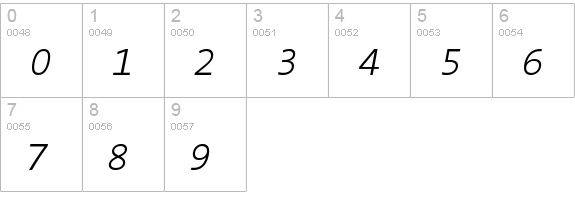
TheSans B3 Light Italic Font Details
TheSans B3 Light Italic is a refined, elegant, italic variant in the TheSans typeface family \xE2\x80\x94 well suited to elegant body text, refined sub-headings, and luxury branding.
TheSans B3 Light Italic font is a remarkable typeface that effortlessly combines elegance with a touch of playfulness. Its slender strokes and carefully crafted letterforms exude a sense of sophistication, making it perfect for projects that require a refined and modern aesthetic. The light italic variant of TheSans B3 is characterized by its subtle slant and graceful curves, adding a subtle emphasis to each letter. This gives your text a gentle, flowing quality that captivates the eye and adds a touch of personality to your designs. One of the most appealing aspects of TheSans B3 Light Italic font is that it is free. Yes, you read that right - this exquisite font is freely available to download at FontsMarket.com. This means you can bring a touch of elegance to your designs without having to spend a dime. Whether you are designing a logo, creating a captivating editorial layout, or crafting a stunning website, TheSans B3 Light Italic font is a versatile choice that will elevate your work to new heights. Its clean and legible design ensures that your message is conveyed with clarity and style, while its italicized form adds a subtle sense of flair. TheSans B3 Light Italic font is the ideal choice for those seeking a typeface that effortlessly balances elegance and modernity. Its availability as a free download at FontsMarket.com makes it an accessible and cost-effective option for designers, whether they are professionals or enthusiasts. Download TheSans B3 Light Italic font now from FontsMarket.com and unlock the potential to create visually stunning and captivating designs that leave a lasting impression. Embrace the freedom to express your creativity and bring your projects to life with this exceptional font.